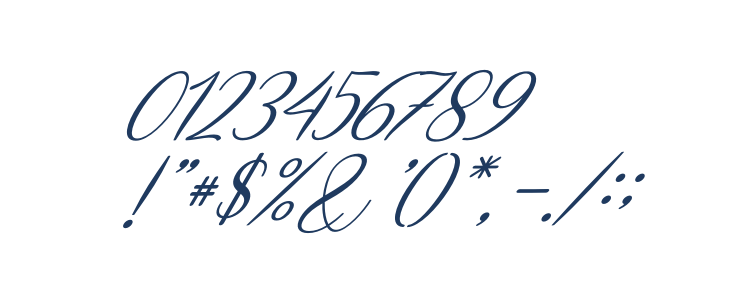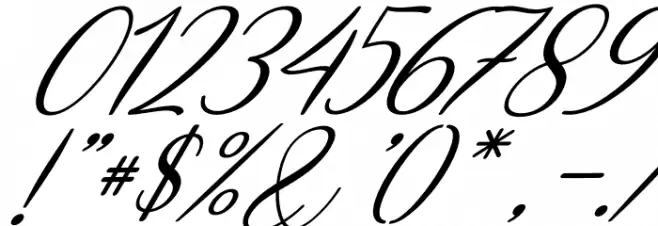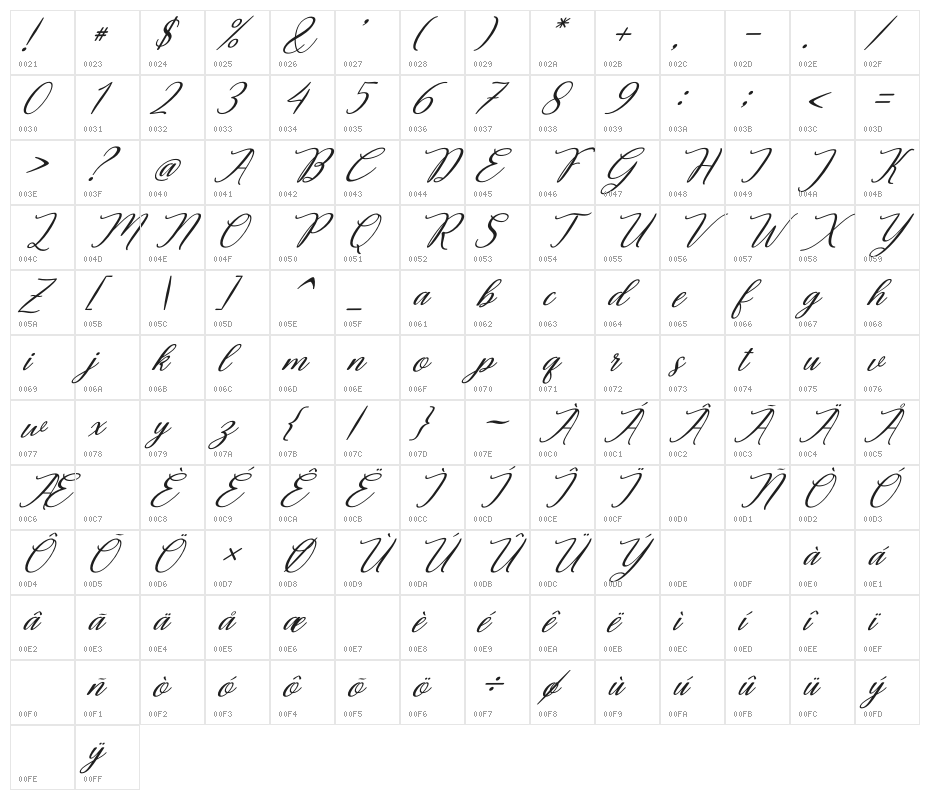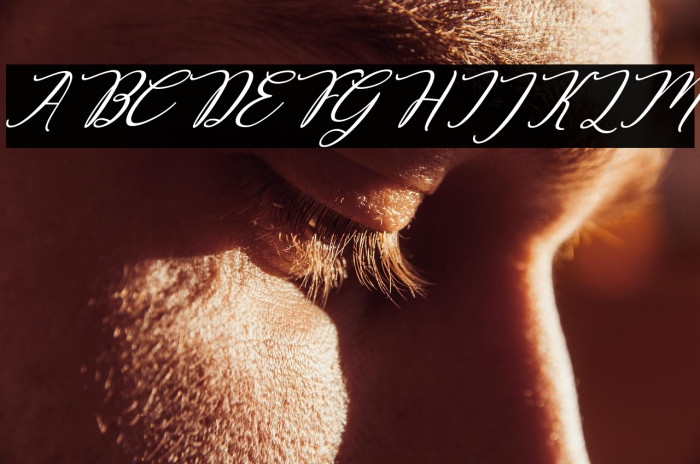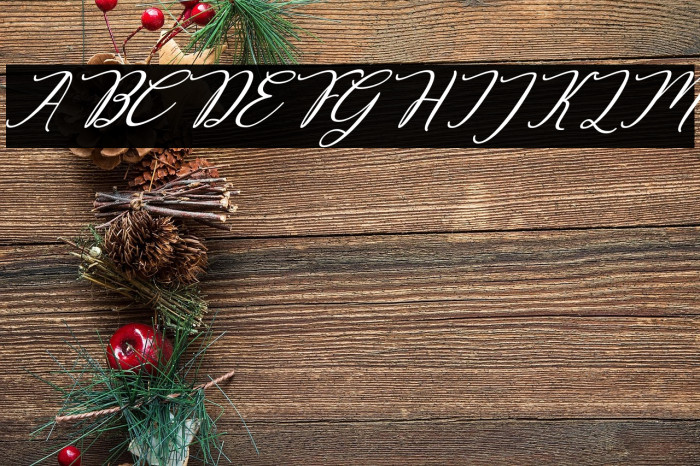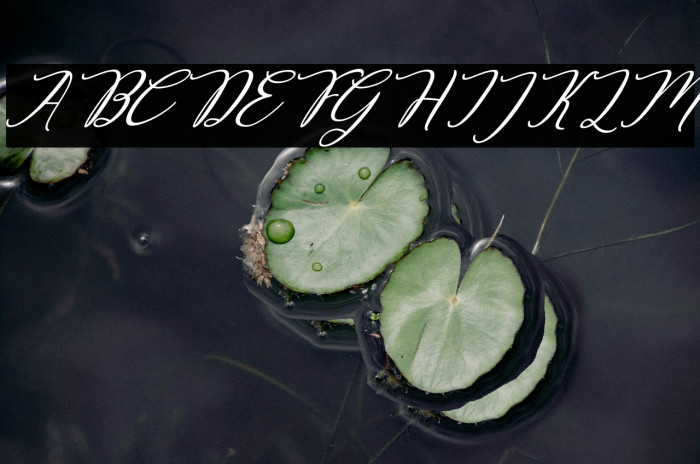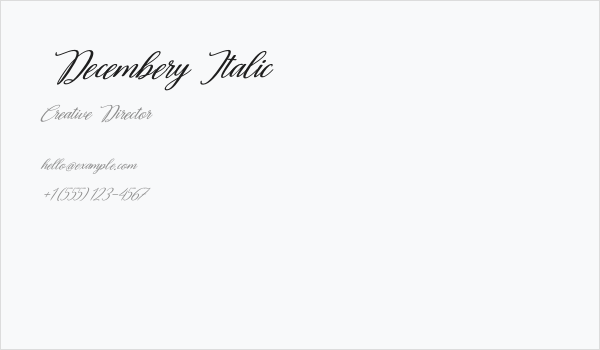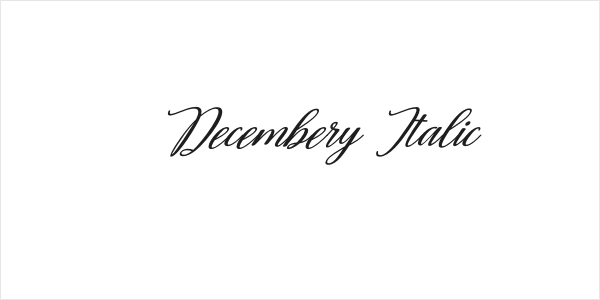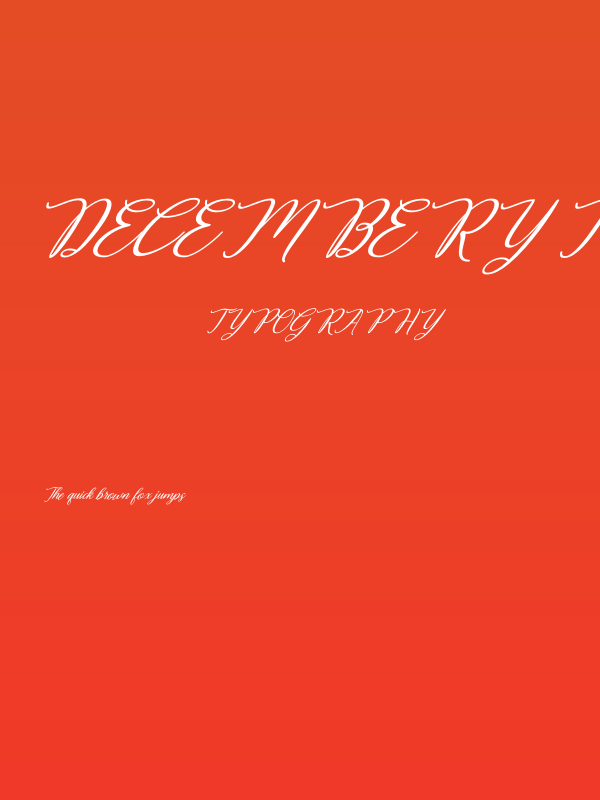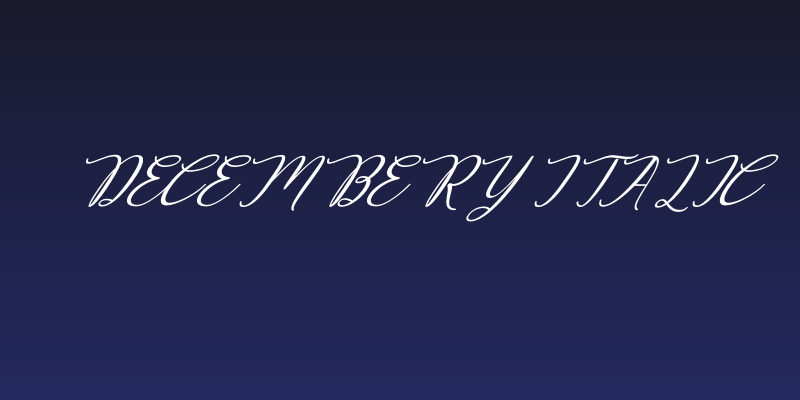
Decembery Italic Font
Decembery Italic Description
This elegant script font features a flowing, cursive style with a distinct italic slant. The characters are interconnected, creating a seamless and sophisticated appearance. The uppercase letters are tall and graceful, while the lowercase letters maintain a consistent rhythm and fluidity. The numerals are stylish and match the overall aesthetic, making them suitable for decorative purposes. Special characters are thoughtfully designed to complement the script's ornate nature. The font's high contrast in stroke thickness adds to its refined and polished look, making it ideal for formal and decorative applications.